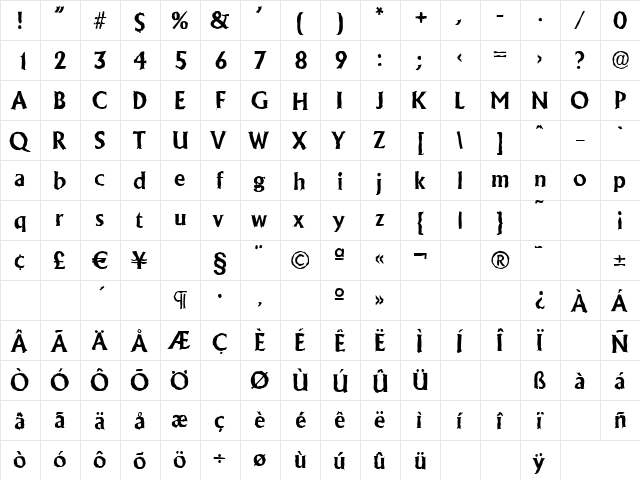
JacobBeckerAntique Bold Font Preview
JacobBeckerAntique Bold
JacobBeckerAntique Bold Font Details
Design Context for JacobBeckerAntique Typeface
JacobBeckerAntique wears its vintage influences proudly, with letterforms that recall mid-century signage, classic packaging, and nostalgia-driven design. The heavy weight commands attention and anchors typographic hierarchies.
Font Pairing: Combine JacobBeckerAntique with a simple slab or neutral sans — period-accurate companions reinforce the vintage feel without competing for attention.
Pro Tip: Use JacobBeckerAntique for headlines and pull quotes rather than body copy — its personality is best appreciated in short, focused bursts.